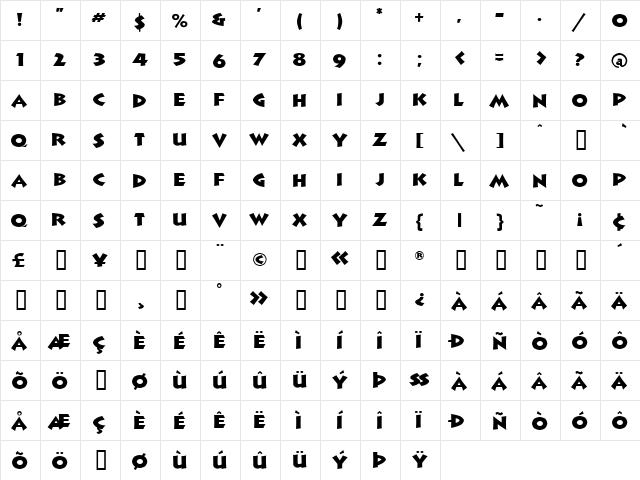
LHF Chucky Block BETA Regular Font Preview
LHF Chucky Block BETA Regular
Design Context for LHF Chucky Block BETA Typeface
LHF Chucky Block BETA is a composed and adaptable typeface that performs quietly and consistently across a wide range of design contexts.
Pro Tip: Use LHF Chucky Block BETA in both headline and body roles to test its range before committing to a single application.